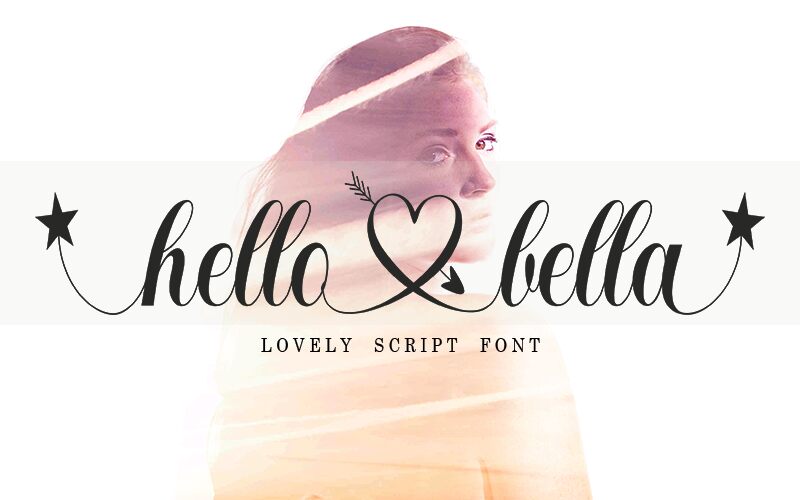
Hello Bella font by Bosstype Studio is a free calligraphy typeface with charming characters reminiscent of handwritten styles. This calligraphy font greatly embodies finesse and artistic visuals with its flowing, romantic, and expressive artistry. Like most calligraphy fonts, Hello Bella incorporates numerous curved strokes that imitate handwriting with an elegant touch.
Features include lowercase beginning and ending swashes and ligatures that enhance the aesthetic appeal of your projects.